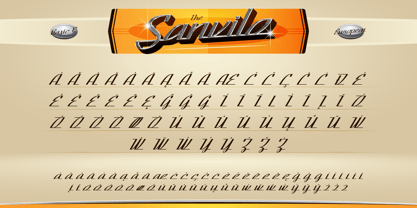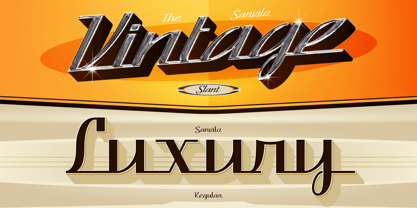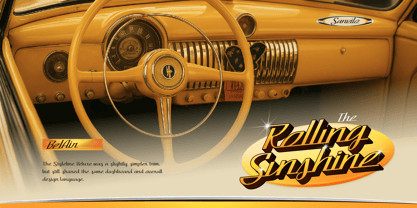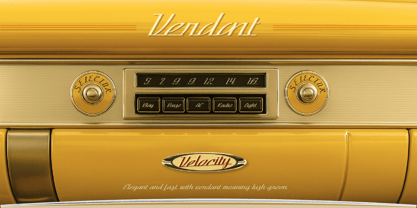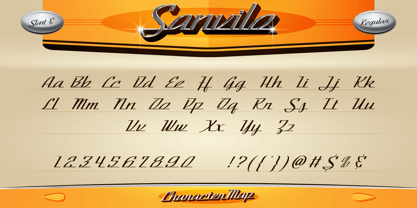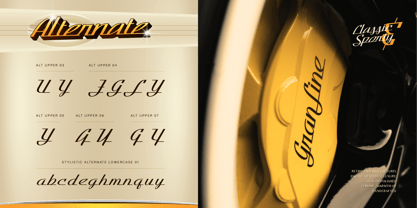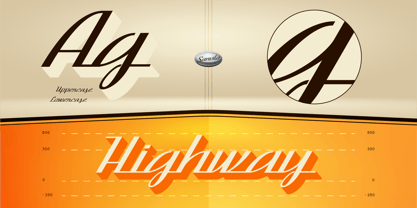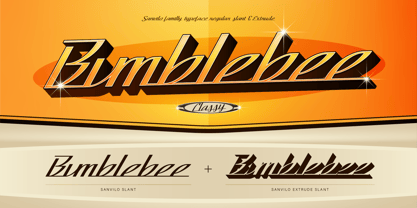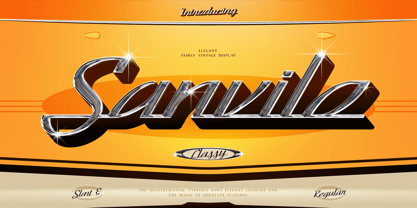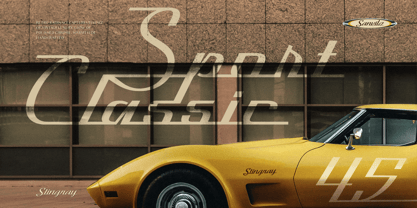
Sanvilo
by Burntilldead
The Sanvilo Font Family was designed by Eric Kurniawan and published by Burntilldead. Sanvilo contains 4 styles and family package options. More about this family
Sanvilo is a classy vintage display font that brings back the charm of retro lettering with a modern touch. Designed with smooth slanted strokes, elegant ligatures, and bold details, Sanvilo is perfect for anyone who wants to add a stylish yet nostalgic vibe to their design.
It comes in Regular, Slant, Extrude, and Extrude Slant styles, giving you plenty of creative freedom to mix and match. Whether you’re working on logos, posters, packaging, or headlines, Sanvilo will instantly make your project stand out with its timeless vintage feel.
Designers: Eric Kurniawan
Foundry: Burntilldead